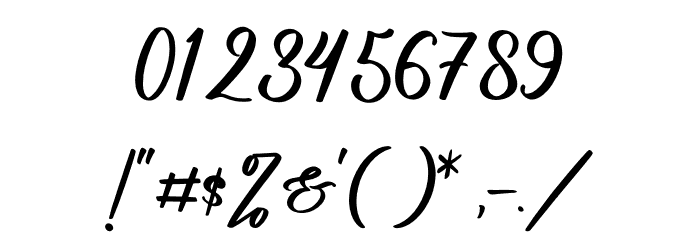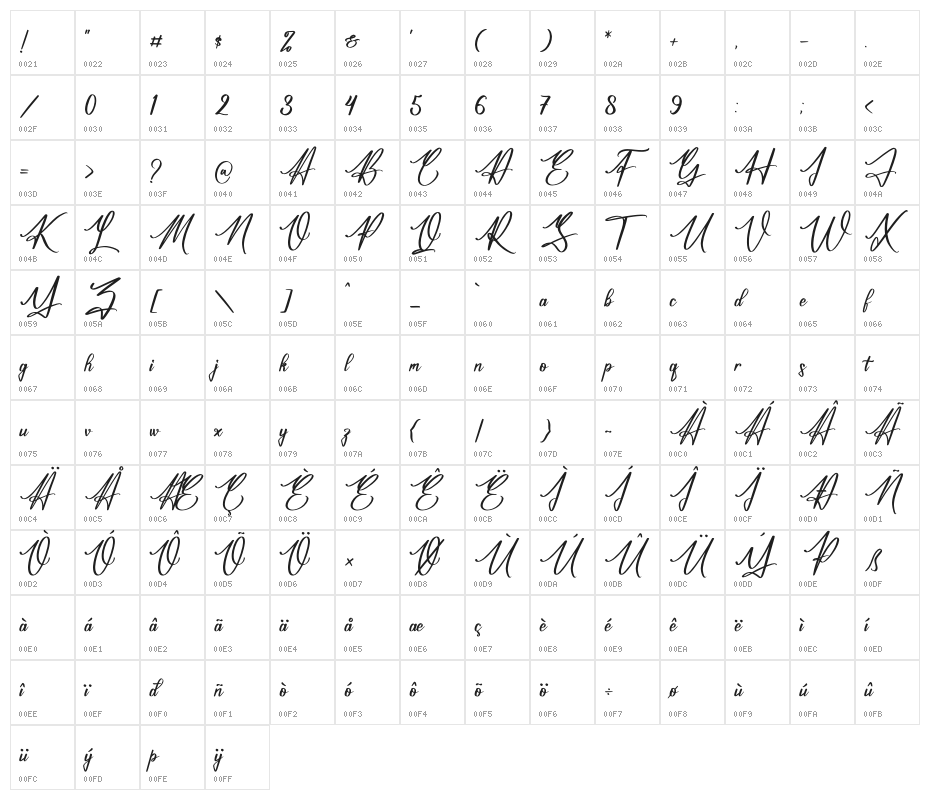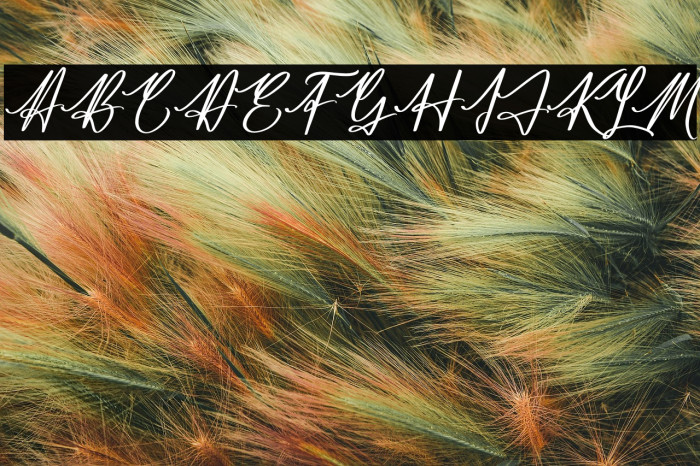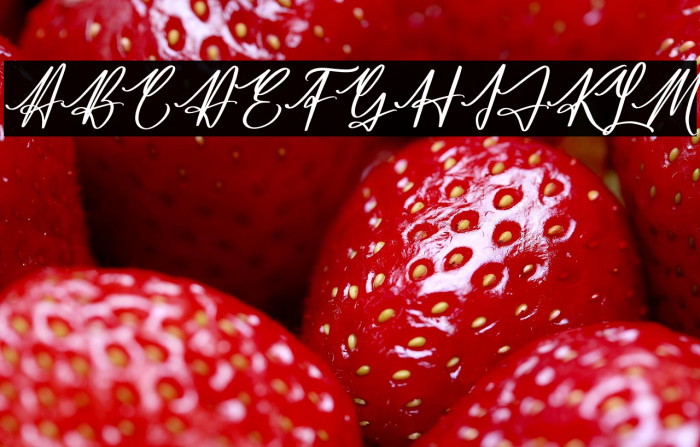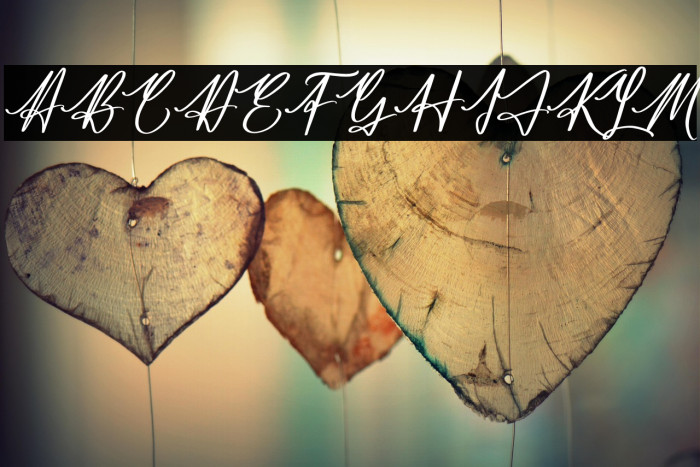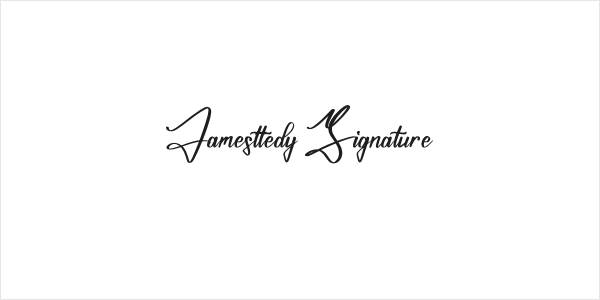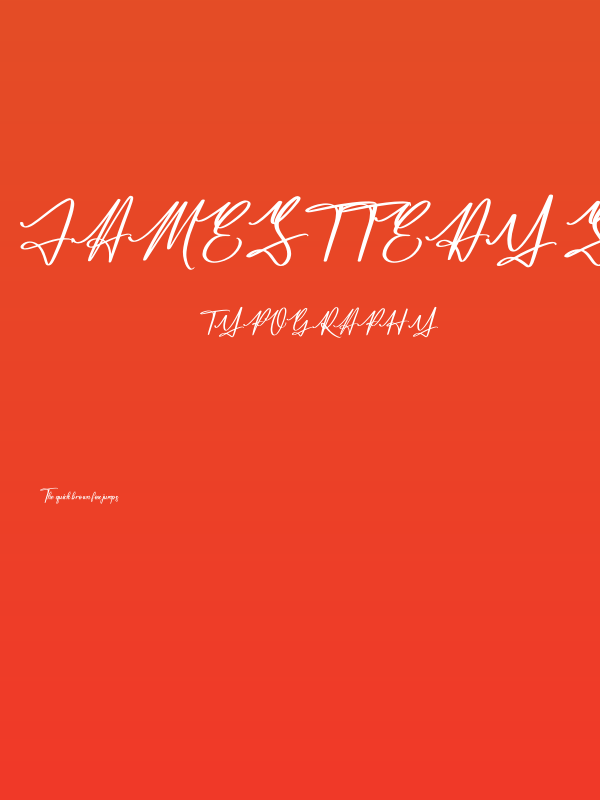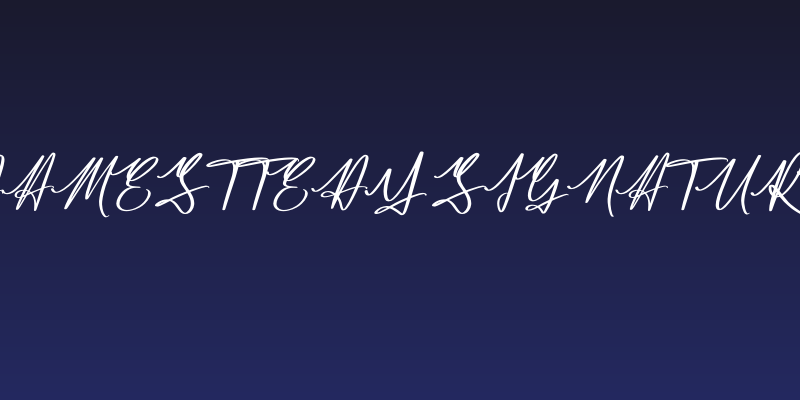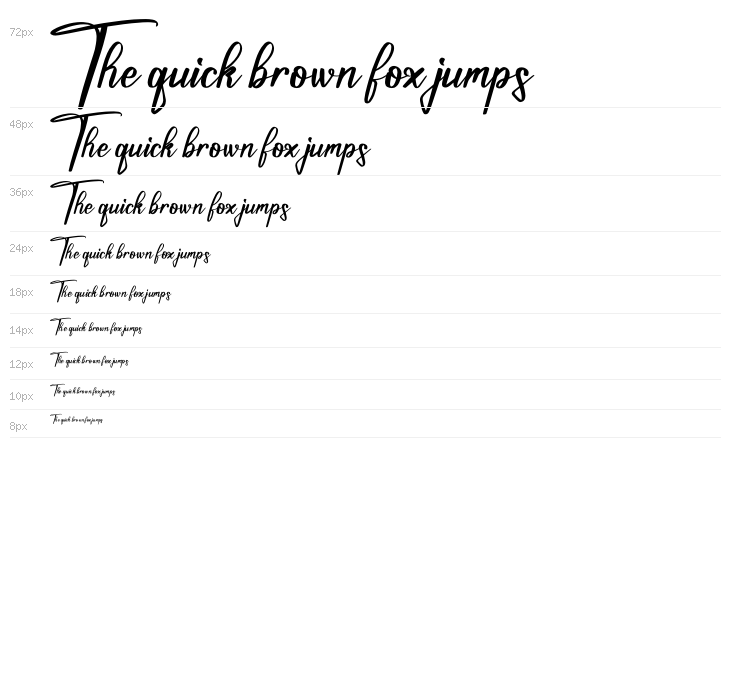
Jamesttedy Signature Font
Jamesttedy Signature Description
This elegant script font exudes a sense of sophistication and fluidity, characterized by its flowing, connected letters that mimic the style of cursive handwriting. The uppercase letters are ornate, with intricate loops and swirls that add a touch of flair, while the lowercase letters maintain a more subdued yet graceful appearance. The numerals are stylish and consistent with the overall script theme, ensuring a cohesive look. Special characters are thoughtfully designed to complement the alphabet, making this font versatile for various applications. Its overall appearance is both classic and modern, suitable for projects that require a personal, handwritten touch.
Overall StyleElegant, Handwritten
Use CaseLogos, Invitations, Branding
Proposed ProjectsIdeal for wedding invitations, branding, greeting cards, and elegant logos.